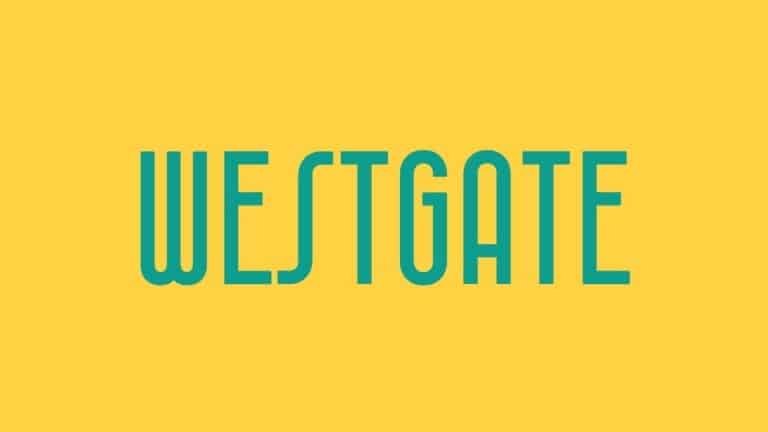
Westgate Sans Serif Font
Westgate Sans Serif Font is a very versatile font that works great in large and small sizes. It’s a sans serif typeface created by Behalf Studio that was designed based on the vernacular concrete typography on the North, East and West gates of Saigon’s iconic Ben Thanh Market, which were installed during its renovation in the middle of 20th century. Withstanding the test of time, they have embodied the history of both the market and of Saigon’s development.
The typeface carries an elegant condensed form inspired by the Art Deco style of the early 20th century French colonial era. It features elongated letter heights, combined with geometric lines and forms. The most charming feature is the Vietnamese diacritics which are harmoniously integrated into the letterforms, thus compensating for the typographic challenges of the Vietnamese language system while not compromising legibility.